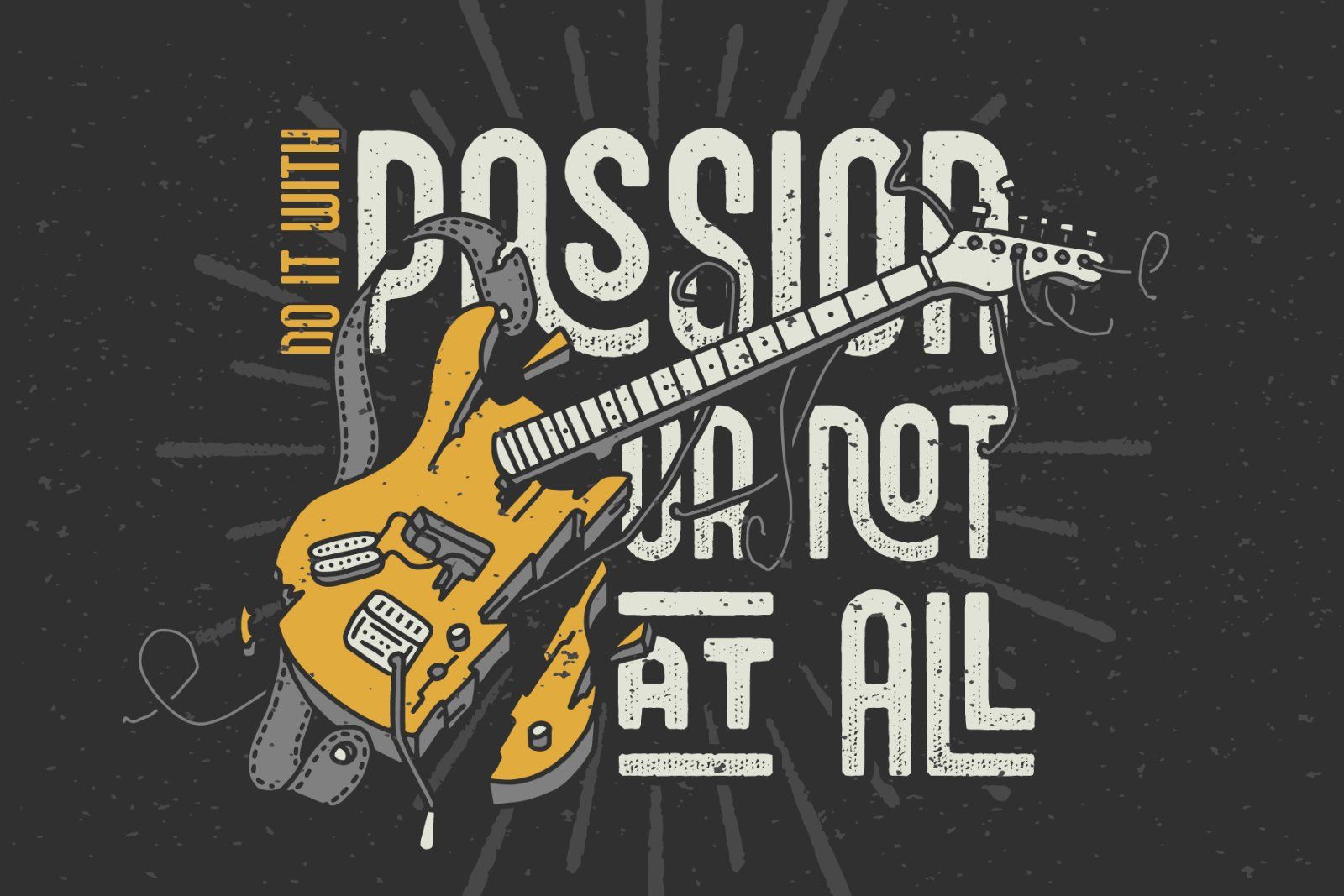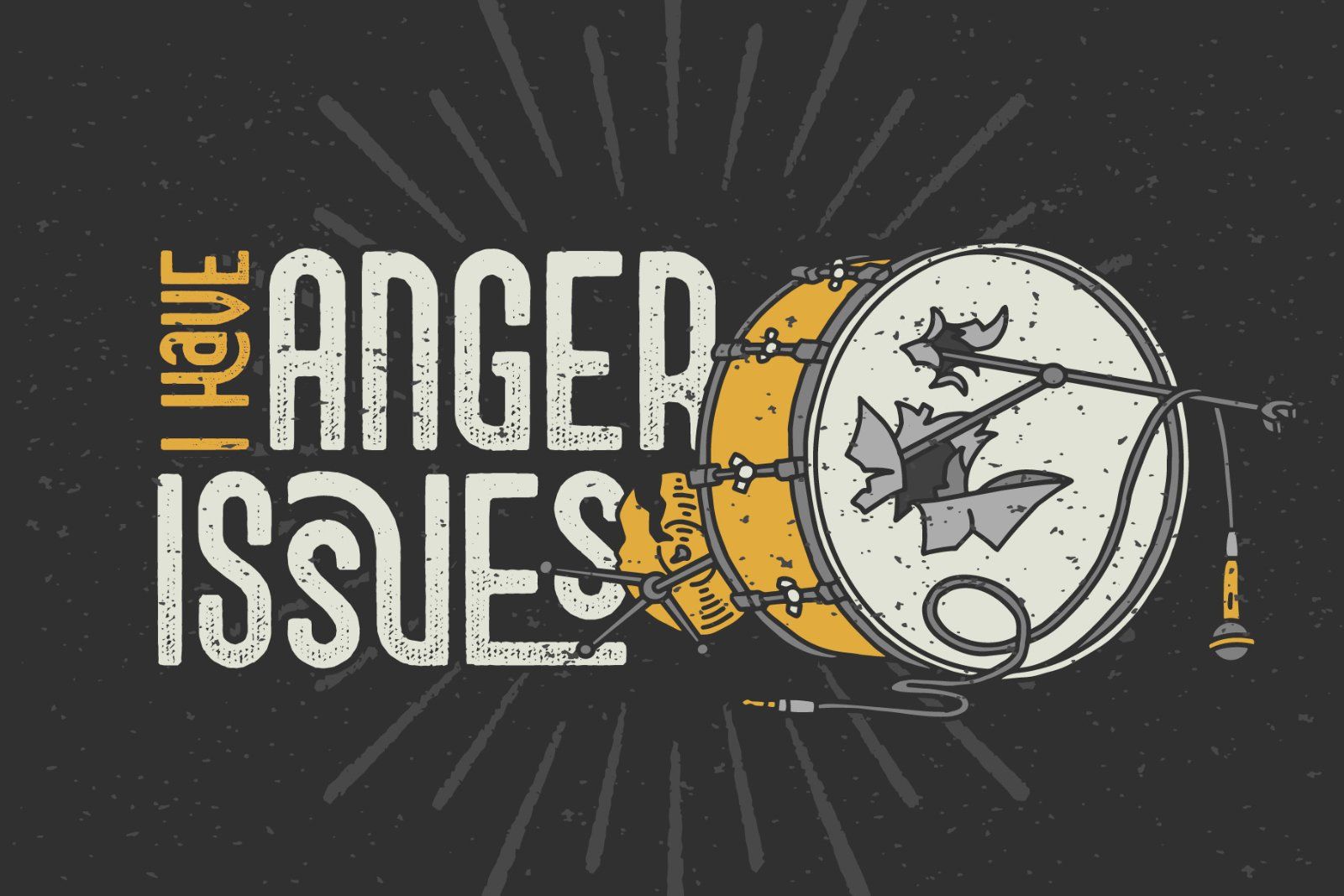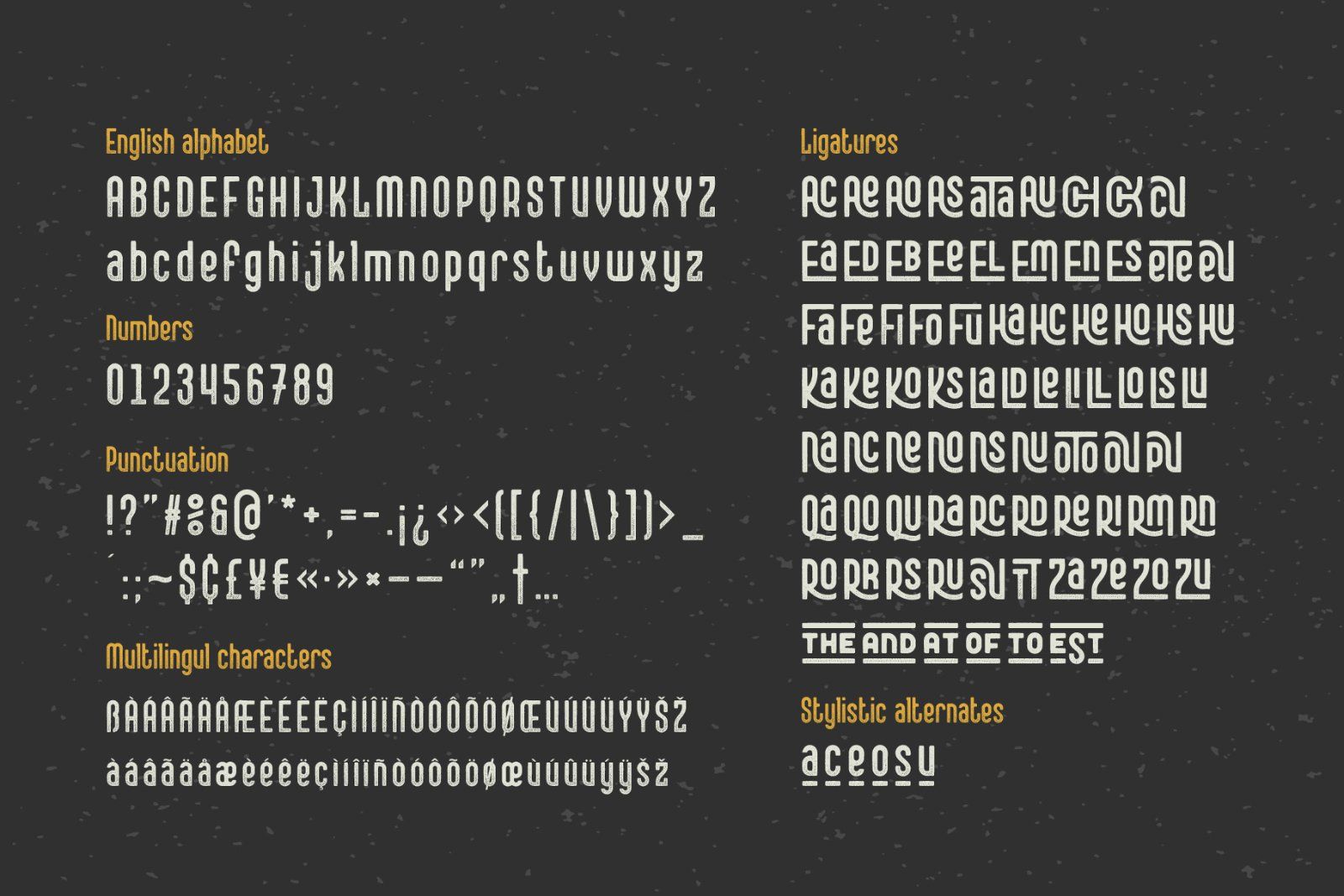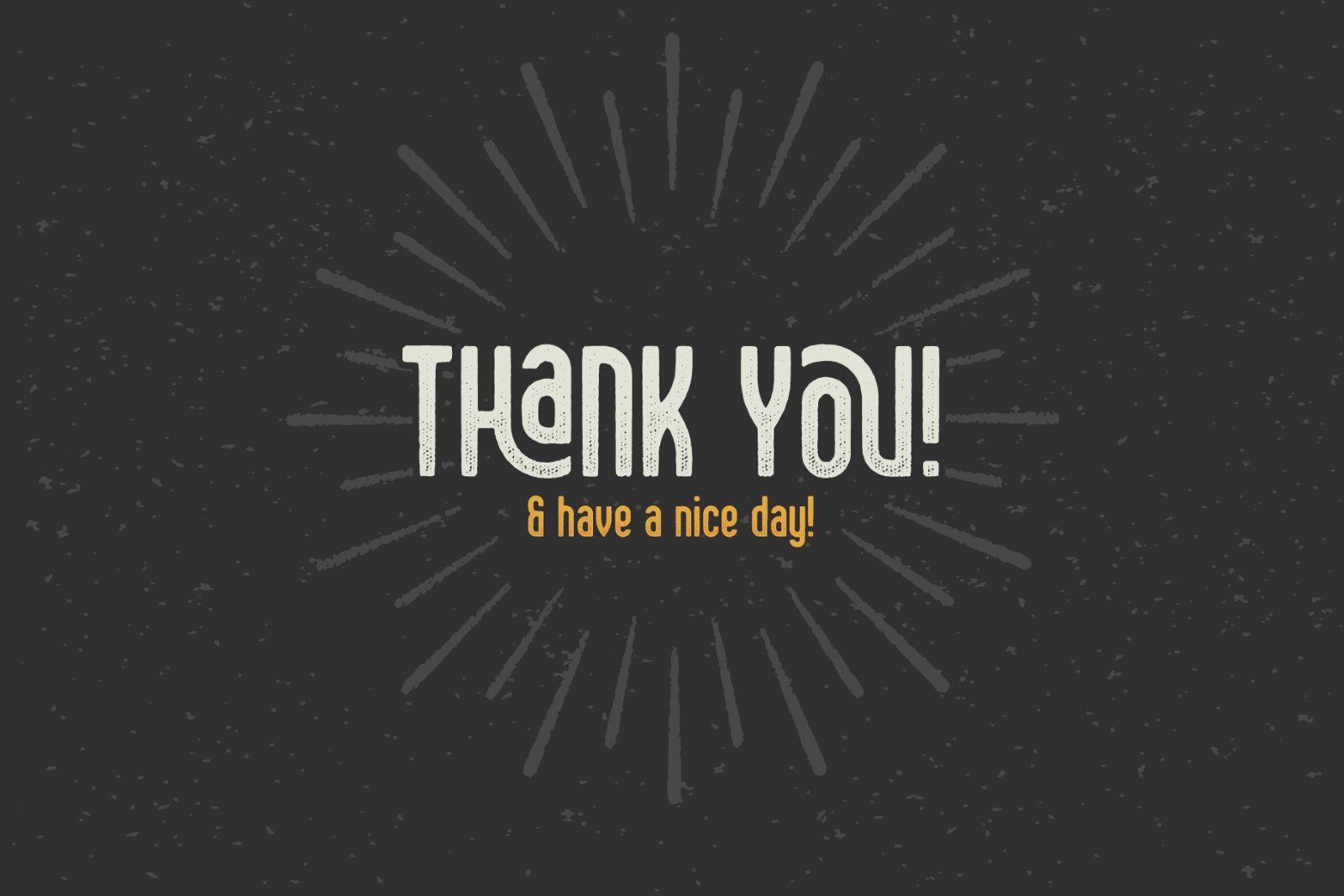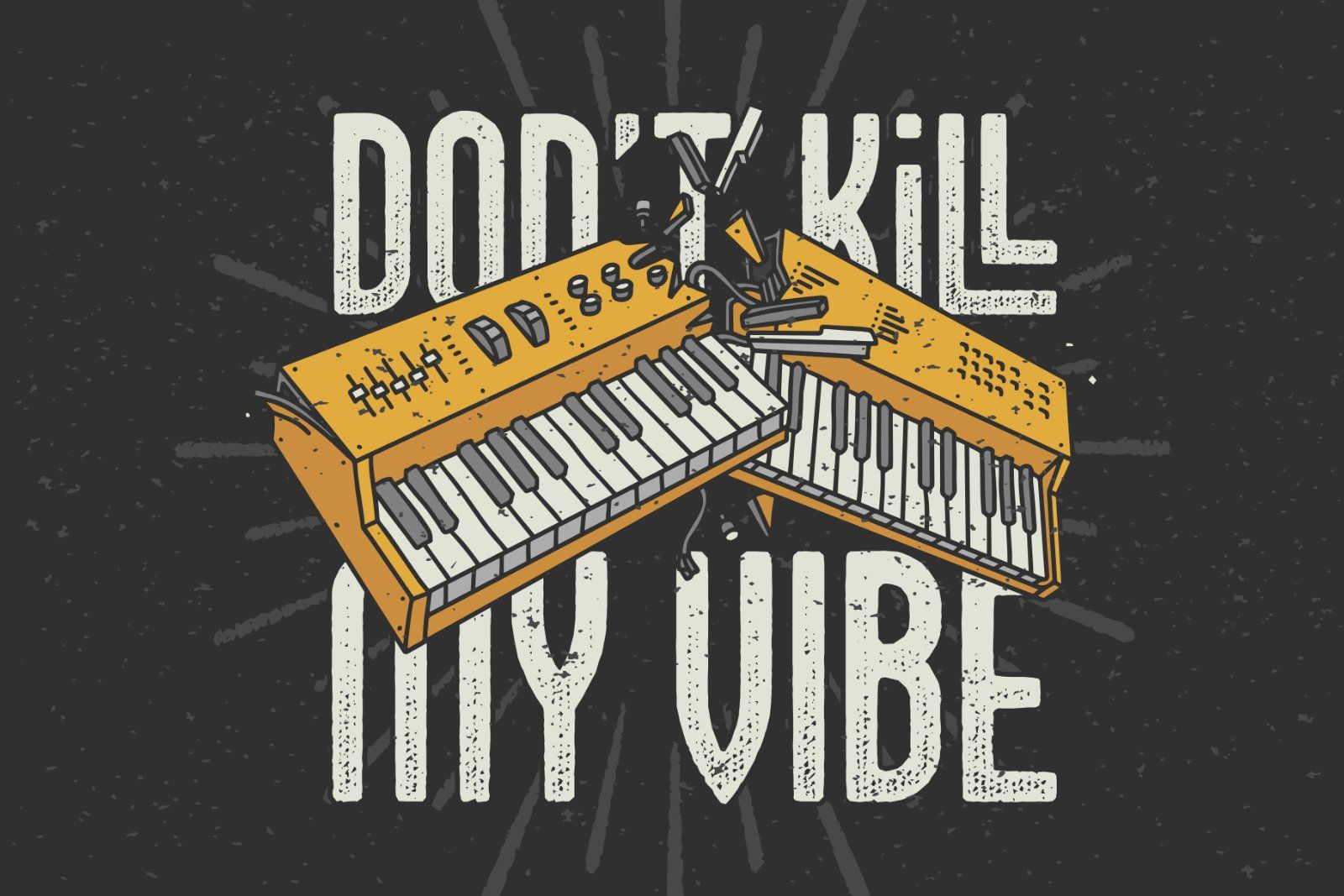
Introducing a modern display font Grayson Rough. It's a textured grunge typeface that has a lot of ligatures and stylistic alternates. That OpenType features can help you to create an awesome and unique lettering compositions with unexpected characters combinations.
Use capital letters to access all this features. Nevertheless it can be a quite simple font if you'll type a small letters, which can be useful for small supporting text. This font has a west European multilingual support (check out the screenshot with available characters).
Also with this font you will get a bonus vector graphics. It includes three lettering posters with broken musical instruments and conceptual text quotes, perfect for t-shirt prints and stuff. Two files for each - with editable text and converted to curves.